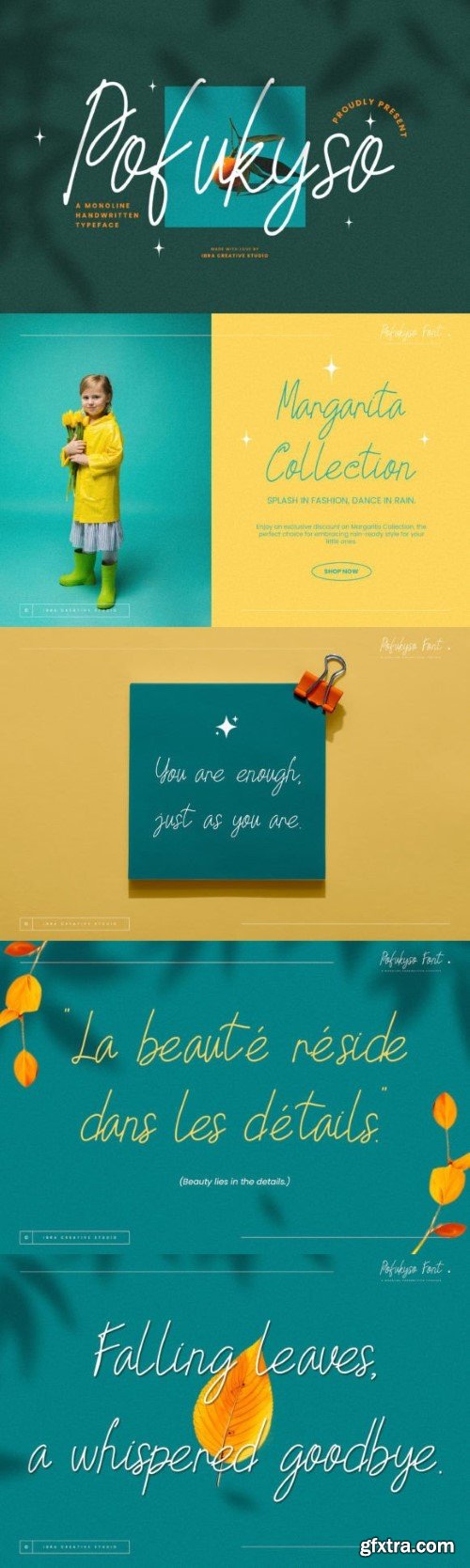
Pofukyso, a captivating monoline handwritten typeface, seamlessly blends simplicity with a touch of whimsy. Its uniform strokes and consistent line weight create a harmonious and contemporary aesthetic, making it ideal for a range of design applications. Pofukyso’s graceful letterforms evoke a sense of fluidity and friendliness, adding a personal and approachable charm to any project.